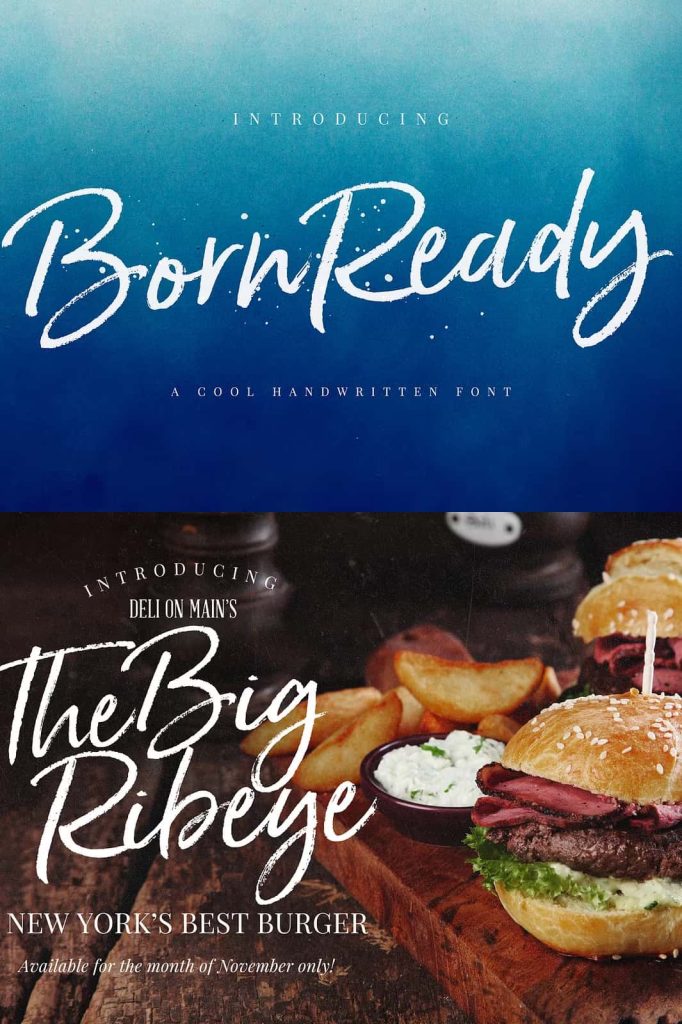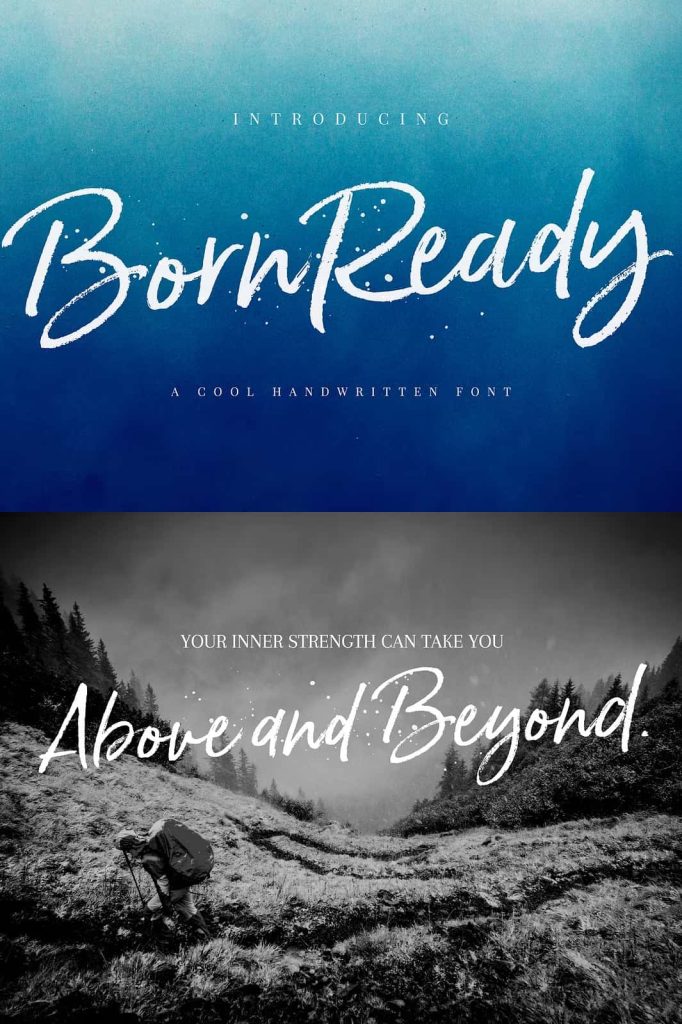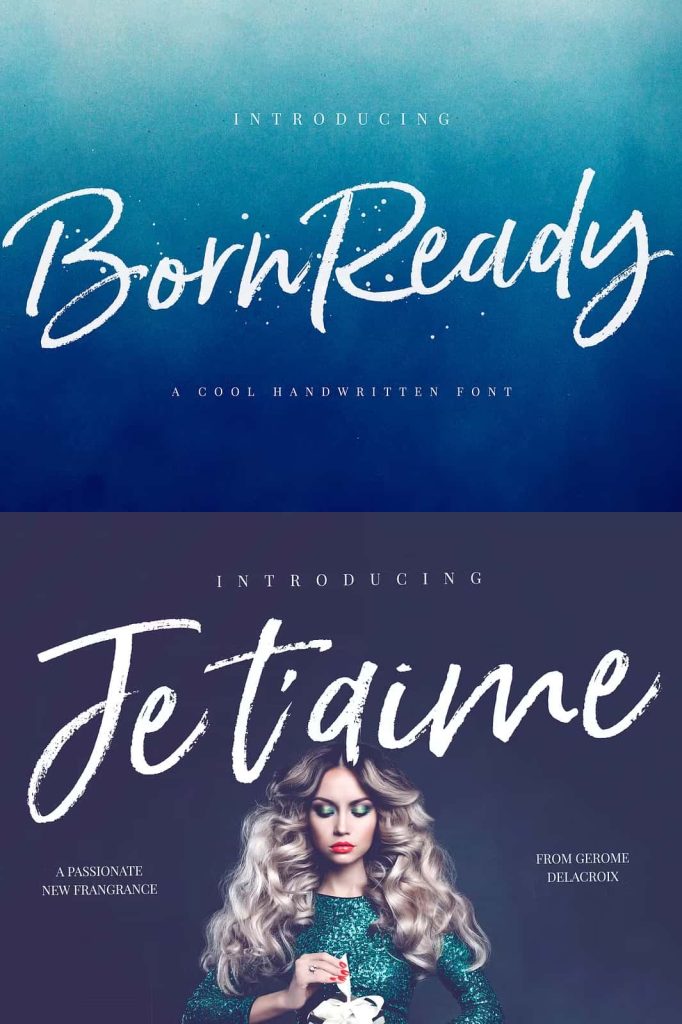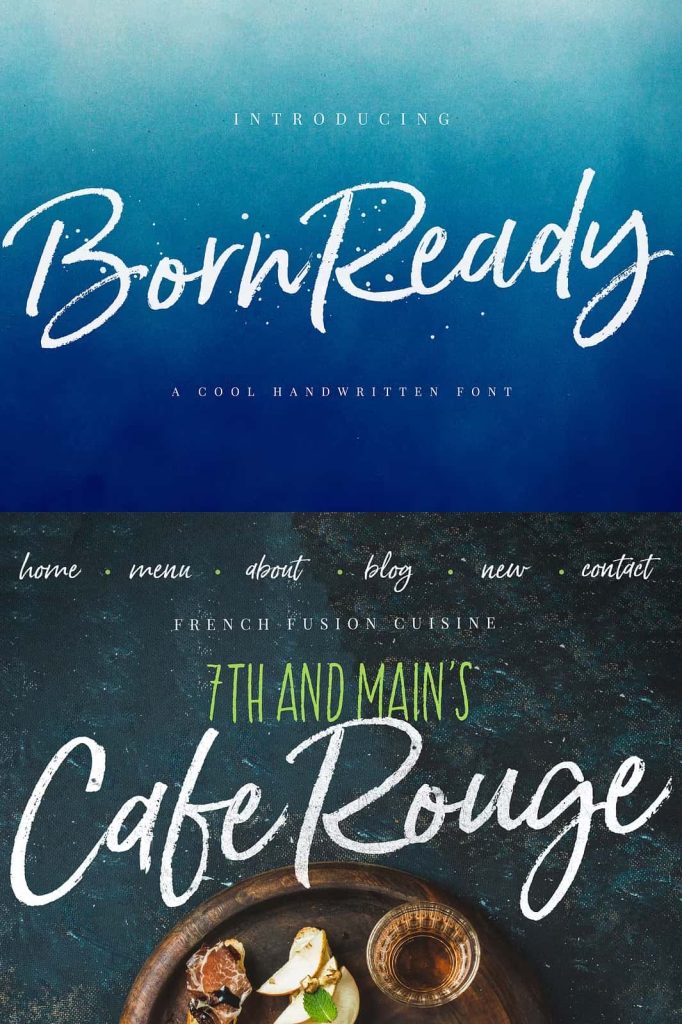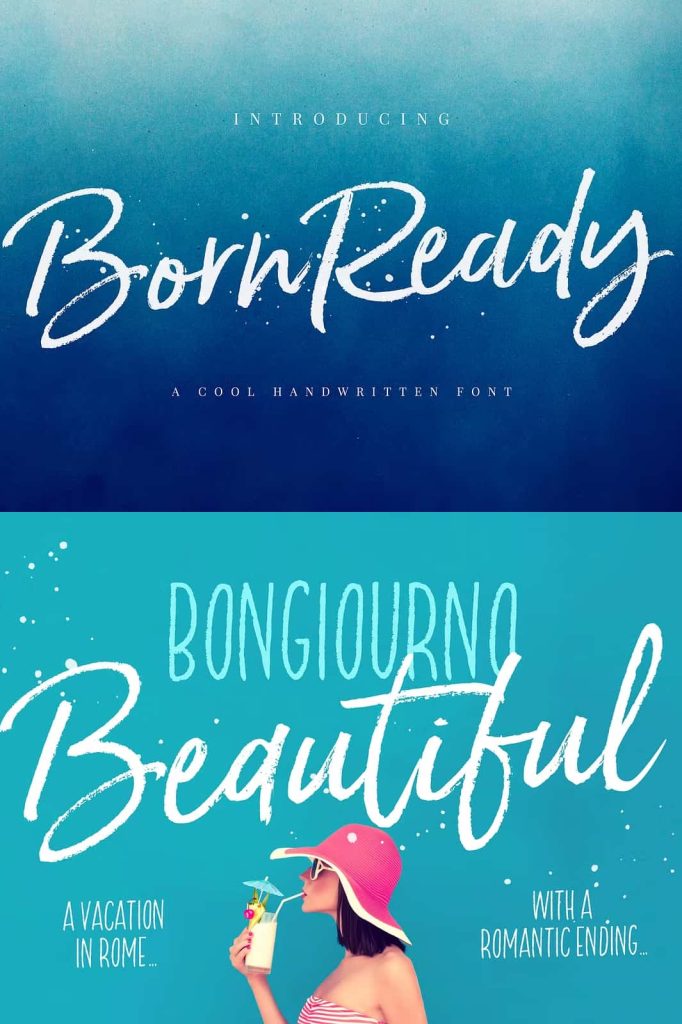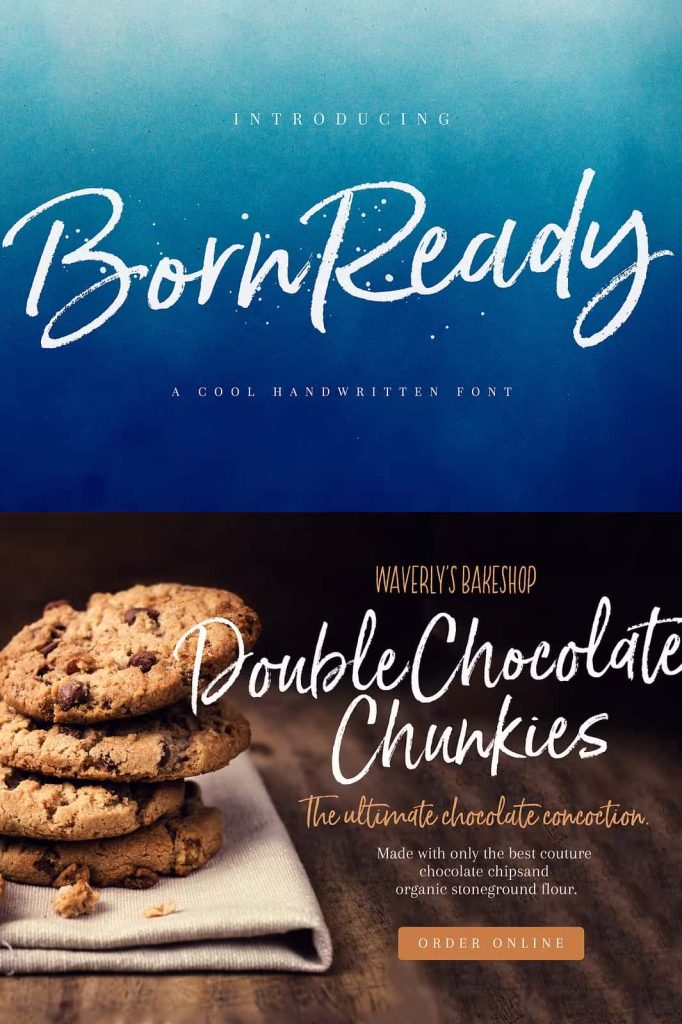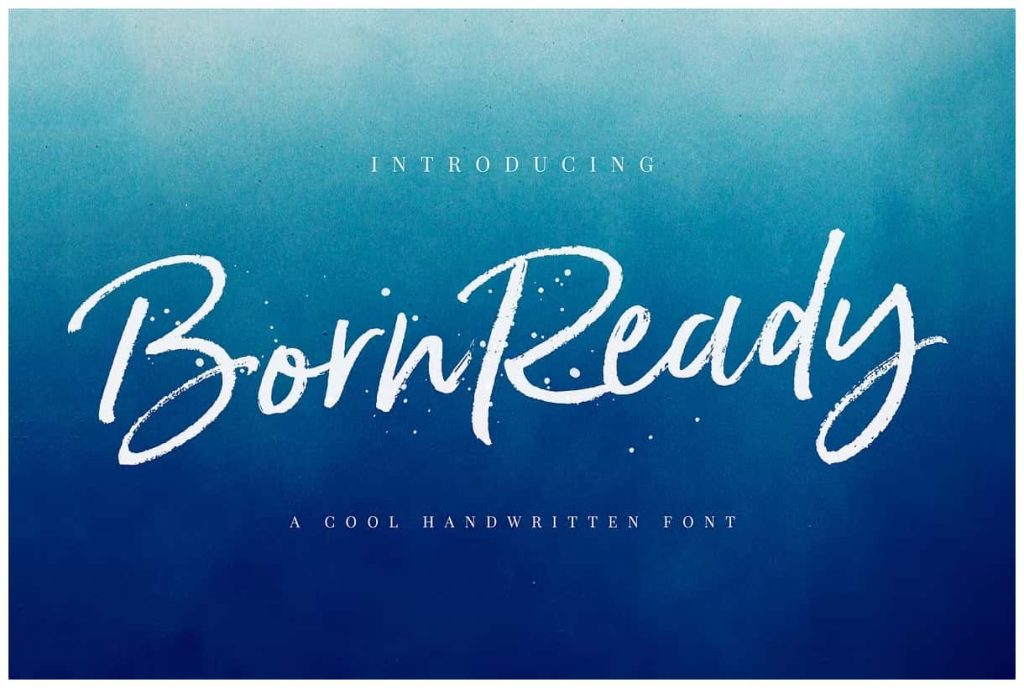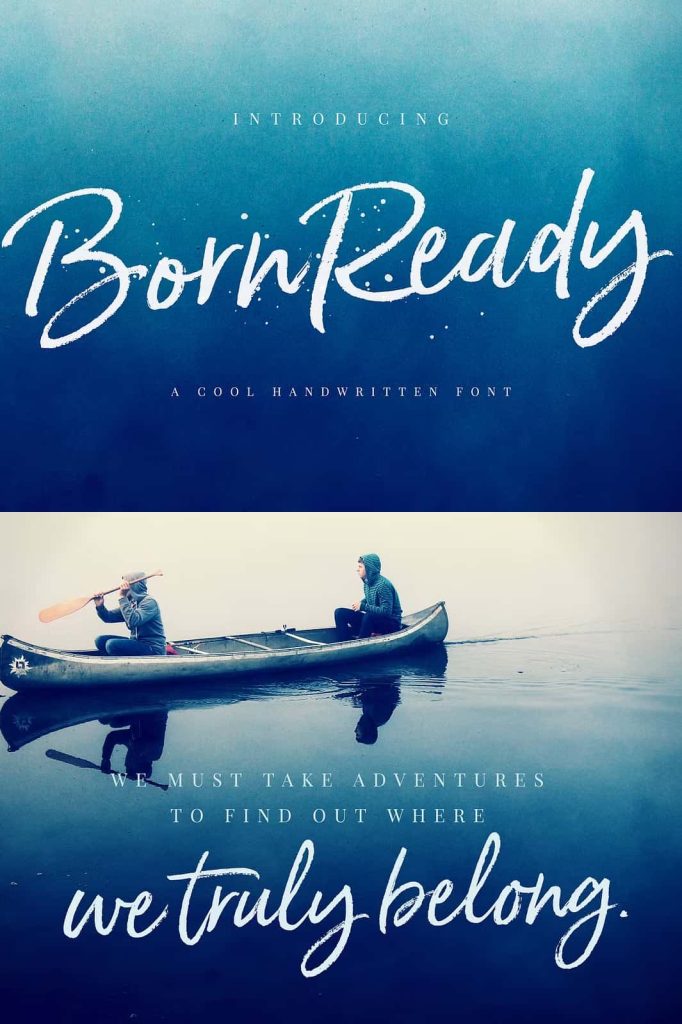
Born Ready Font – Bold, Textured, and Full of Character
Born Ready Font is not just a typeface—it’s a creative statement. Designed with the raw energy of a dry marker, this handwritten font brings a burst of confidence and individuality to your projects. Its bold strokes, textured lines, and expressive personality make it a perfect choice for designs that aim to stand out and make an unforgettable impression. Whether you’re creating a brand identity, designing posters, or crafting social media content, Born Ready helps you communicate your message with power and style.
Unleash the Power of Handcrafted Expression
Born Ready captures the authentic look and feel of real marker writing. Each stroke was designed to mimic the dynamic flow of ink on paper, giving your typography a raw, handcrafted appeal. This organic texture makes it ideal for projects that need a personal touch, balancing spontaneity with artistic structure. It feels natural, expressive, and bold—just like its name suggests.
The beauty of Born Ready lies in its imperfections. The rough edges and textured lines bring depth and emotion to every letter, creating a sense of authenticity that’s impossible to replicate with clean digital fonts. It’s a font that feels human—vivid, creative, and alive. Perfect for brands and designers who value originality and want to break away from sterile, overly polished aesthetics.
A Font with Multiple Personalities
What makes Born Ready Font truly special is its versatility. Despite its bold appearance, it adapts beautifully to a variety of design contexts. Whether you’re aiming for a fierce, energetic vibe or a relaxed, casual tone, Born Ready can do it all. Its textured strokes and natural rhythm allow you to create both edgy, modern designs and approachable, handcrafted layouts.
Use it for logos, packaging, posters, apparel, product labels, and social media graphics. In branding, Born Ready communicates confidence and creativity—it’s perfect for bold startups, lifestyle brands, or creative professionals looking to make a memorable impression. On posters and promotional materials, it grabs attention instantly, turning simple words into powerful visual statements.
Authentic Texture and Dynamic Flow
Born Ready’s textured lines are one of its most defining features. They recreate the look of dry marker ink with remarkable detail, making the typeface appear freshly written and full of energy. This visual texture adds movement and character to your design, ensuring it never feels flat or mechanical. Every letter has a sense of rhythm, as if drawn by hand in one confident motion.
The font’s natural flow enhances its readability, even at larger sizes, while maintaining the handcrafted quality that sets it apart. It’s a font that feels spontaneous but remains balanced—perfect for adding visual interest without sacrificing clarity.
Perfect for Bold Branding and Creative Design
Born Ready Font was made for designers who want to be bold and expressive. Its raw energy makes it ideal for projects that demand personality and attention. When used in logos, it instantly conveys confidence and originality. For packaging, it adds a creative edge that helps products stand out on the shelf. And for digital media, it gives social posts, banners, and headlines a strong, human touch that resonates with audiences.
This handwritten marker font fits perfectly within modern design trends, where authenticity and imperfection are celebrated. It complements minimalist layouts by adding warmth and depth, and it pairs beautifully with clean sans-serif fonts for a contemporary contrast.
Why Designers Love Born Ready
- Authentic dry marker texture for a handcrafted look
- Versatile and expressive style suitable for multiple design uses
- Strong visual impact ideal for logos, posters, and branding
- Organic flow and dynamic letterforms for natural rhythm
- Perfect balance between edgy creativity and readability
Designers love Born Ready because it allows them to express emotion through typography. It feels spontaneous yet controlled, artistic yet professional. It’s the kind of font that can define a brand’s personality or transform a simple phrase into a memorable statement.
Tips for Using Born Ready Effectively
To get the most out of Born Ready, pair it with minimalist backgrounds and complementary typefaces. Its bold texture shines best when it has room to breathe, so consider using it as a headline or focal point. Experiment with color overlays and layered textures to enhance its dry marker effect. For branding, use the font sparingly for emphasis—its personality will do the rest of the talking.
Born Ready also works beautifully in motion graphics and video titles, where its textured strokes bring movement and energy to visual storytelling. In editorial design, it adds contrast and life to clean layouts, giving them a touch of personality and charm.
Conclusion: Be Bold, Be Authentic, Be Born Ready
Born Ready Font embodies creativity, individuality, and artistic freedom. Its dry marker texture and bold, handwritten style make it a versatile choice for designers who want their work to feel alive and expressive. Whether you’re building a brand, designing for print, or crafting social content, Born Ready delivers unmatched energy and emotion. Stand out, speak loud, and make every word count with the font that was made for those who are truly Born Ready.